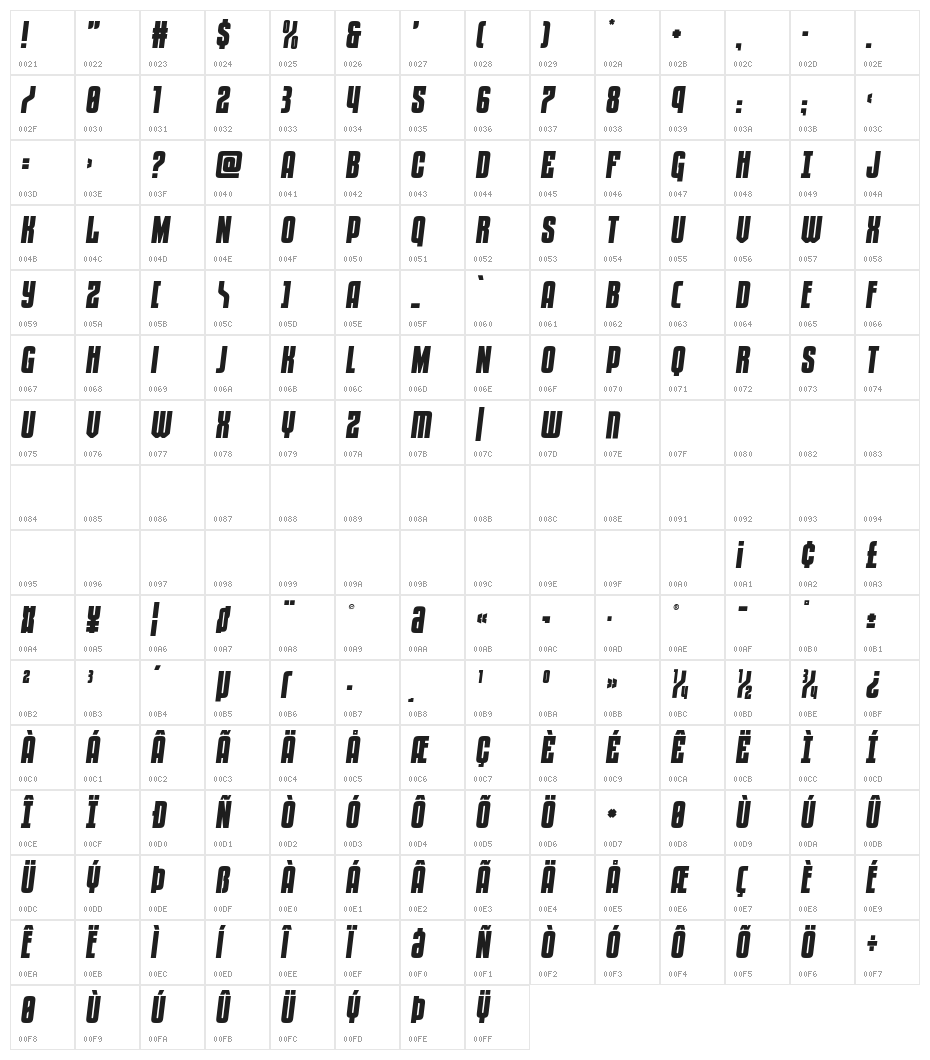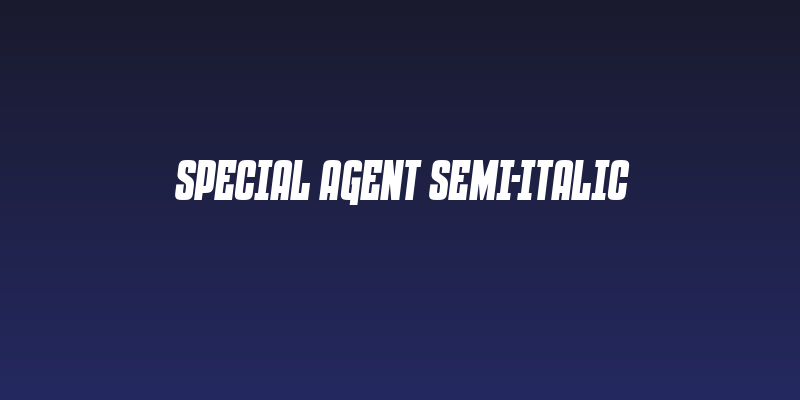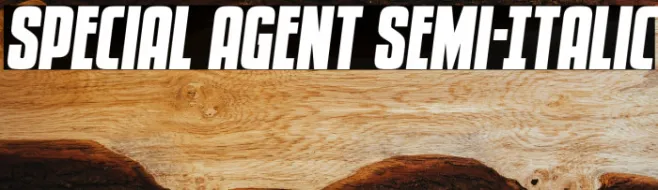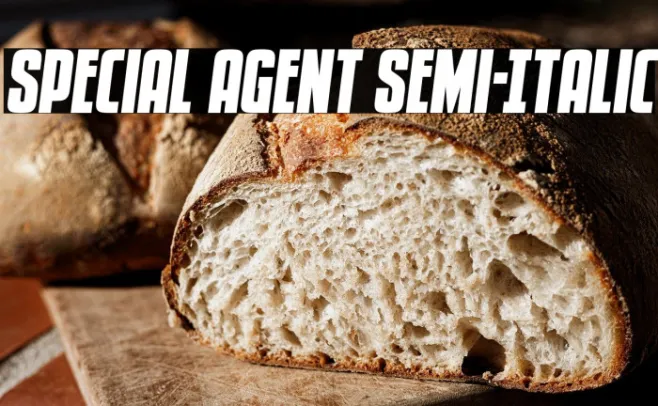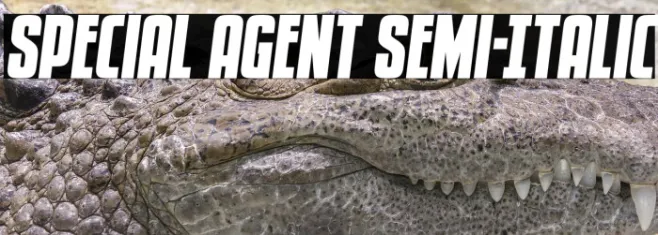
Special Agent Semi-Italic Font
Special Agent Semi-Italic Description
This font features a bold and dynamic style with a strong presence. The characters are slightly italicized, giving them a forward-leaning appearance that suggests movement and urgency. The strokes are thick and consistent, providing a robust and powerful look. The letterforms are tightly spaced, enhancing the compact and impactful nature of the design. This font is well-suited for attention-grabbing headlines and titles, where a sense of action or intensity is desired. The angular and geometric shapes of the letters contribute to a modern and assertive aesthetic, making it ideal for projects that require a bold statement.
SPECIAL-AGENT-SEMI-ITALIC UPPERCASE
SPECIAL-AGENT-SEMI-ITALIC LOWERCASE
SPECIAL-AGENT-SEMI-ITALIC OTHER CHARS